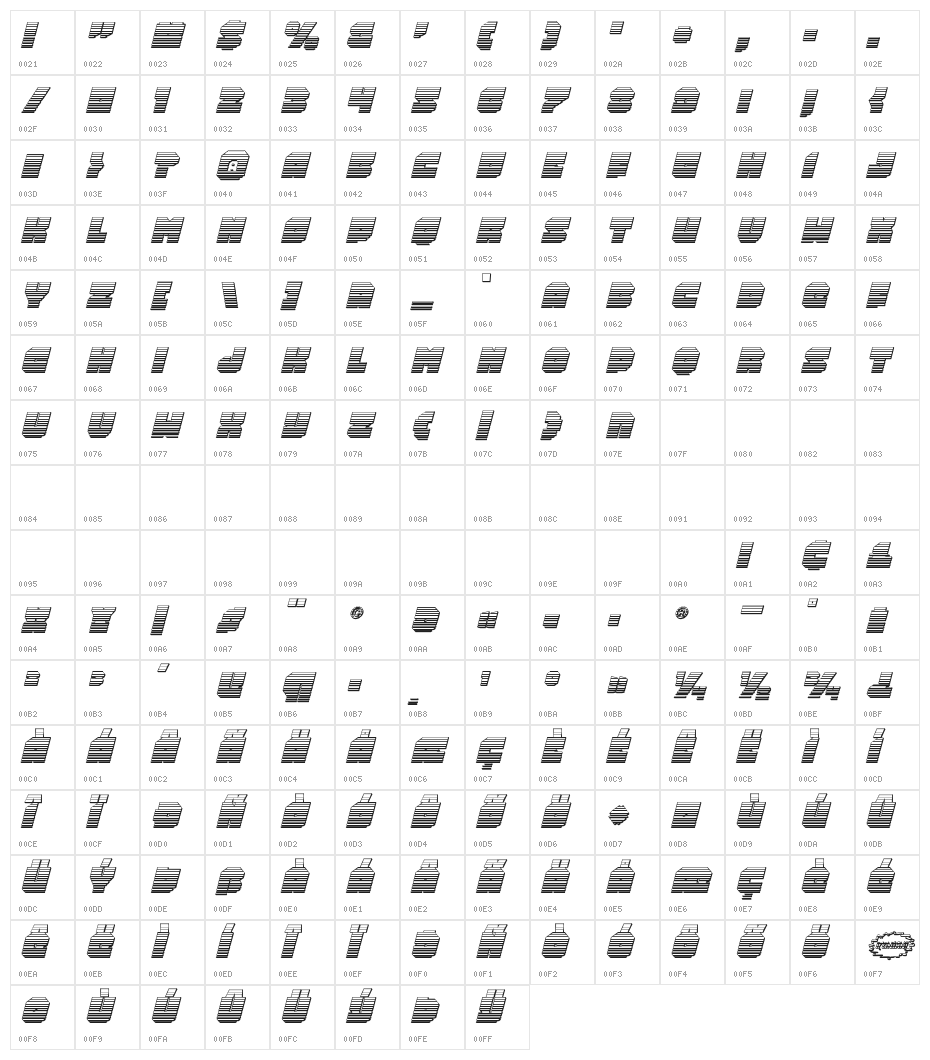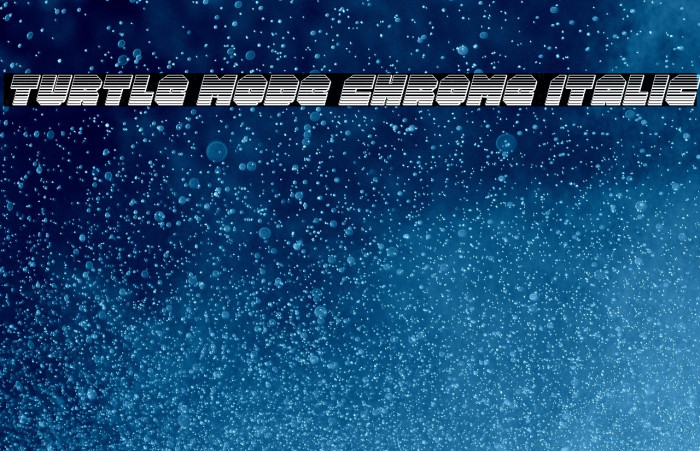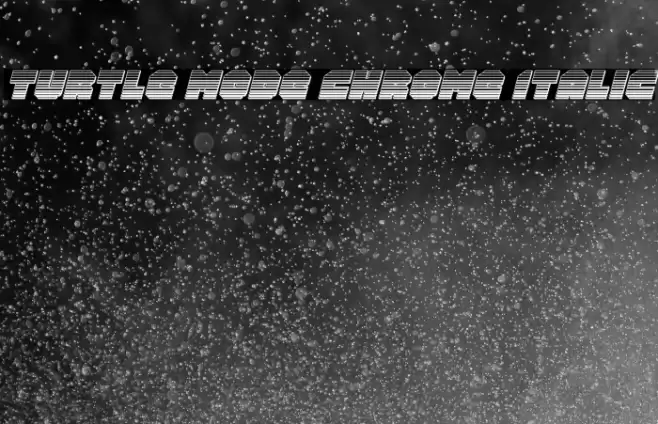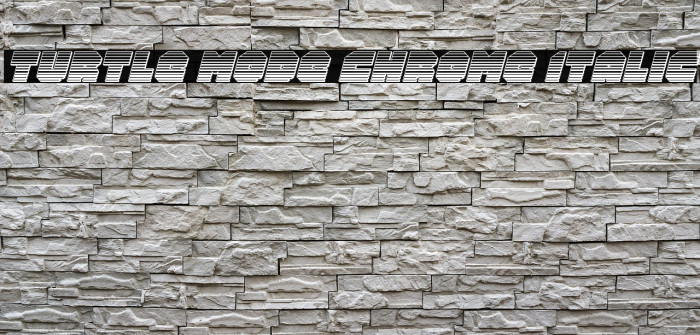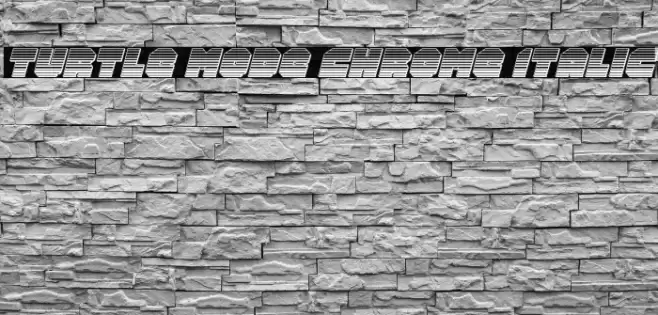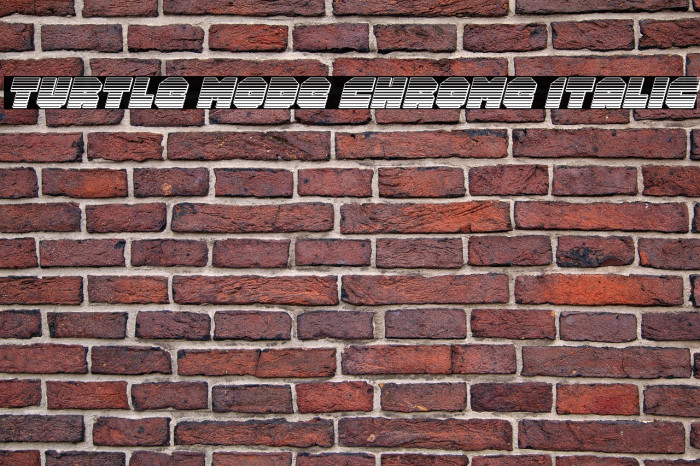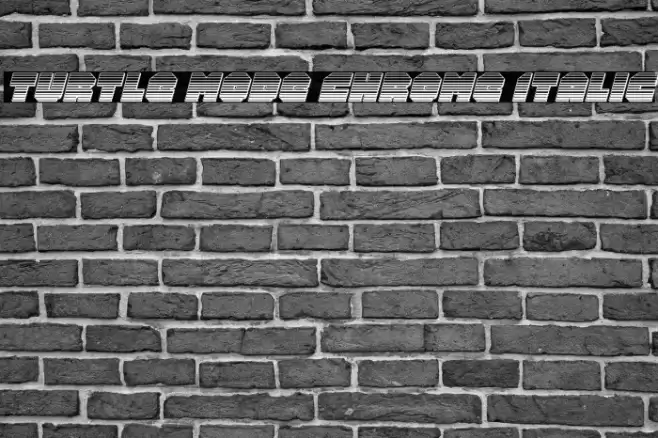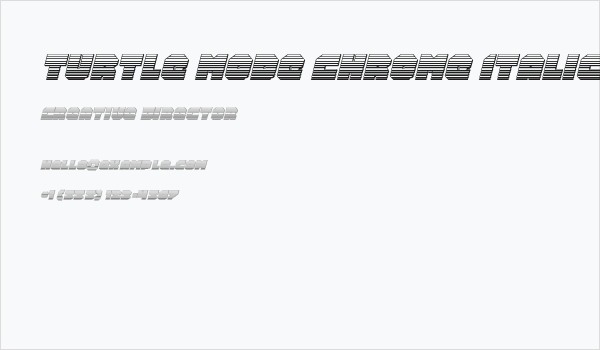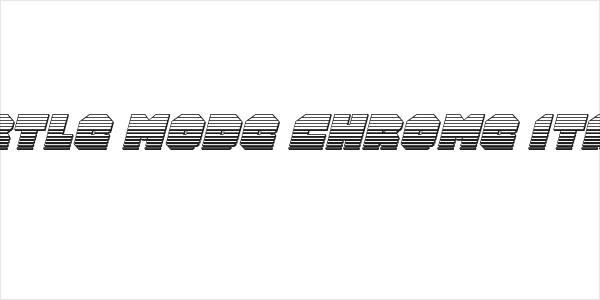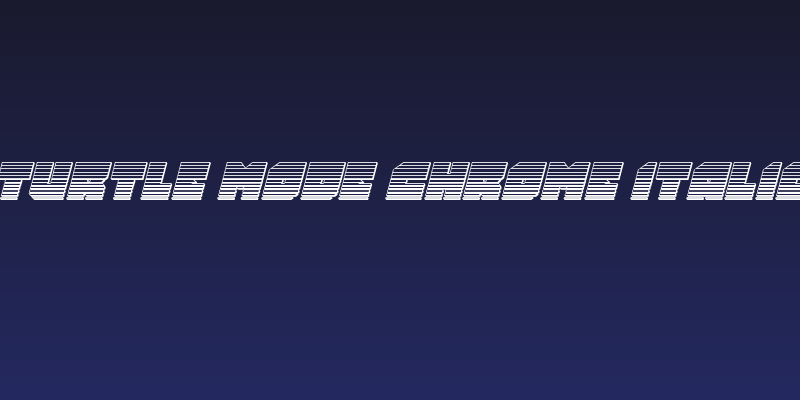
Turtle Mode Chrome Italic Font
Turtle Mode Chrome Italic Description
This font features a bold, three-dimensional design with a distinct chrome-like appearance. Each character is composed of multiple horizontal lines that create a layered effect, giving the impression of depth and movement. The italic slant adds a dynamic and futuristic feel, making it stand out in any design. The uppercase and lowercase letters maintain a consistent style, with the numbers and special characters following suit. This font is perfect for projects that require a modern and edgy look, such as technology-related branding or sci-fi themed designs.
| Overall Style | Futuristic, Modern |
| Proposed Projects | Ideal for technology branding, sci-fi themes, video game titles, and futuristic posters. |